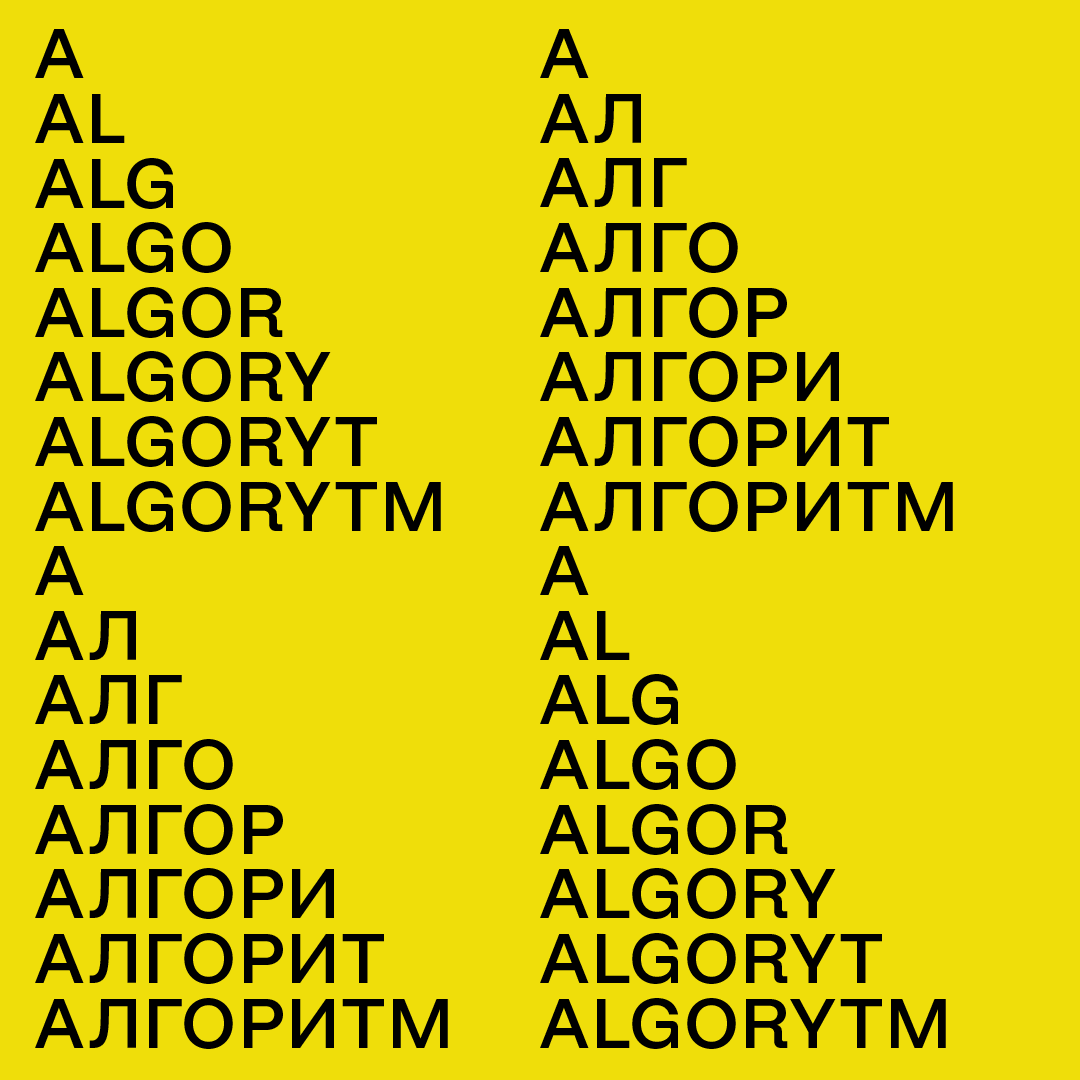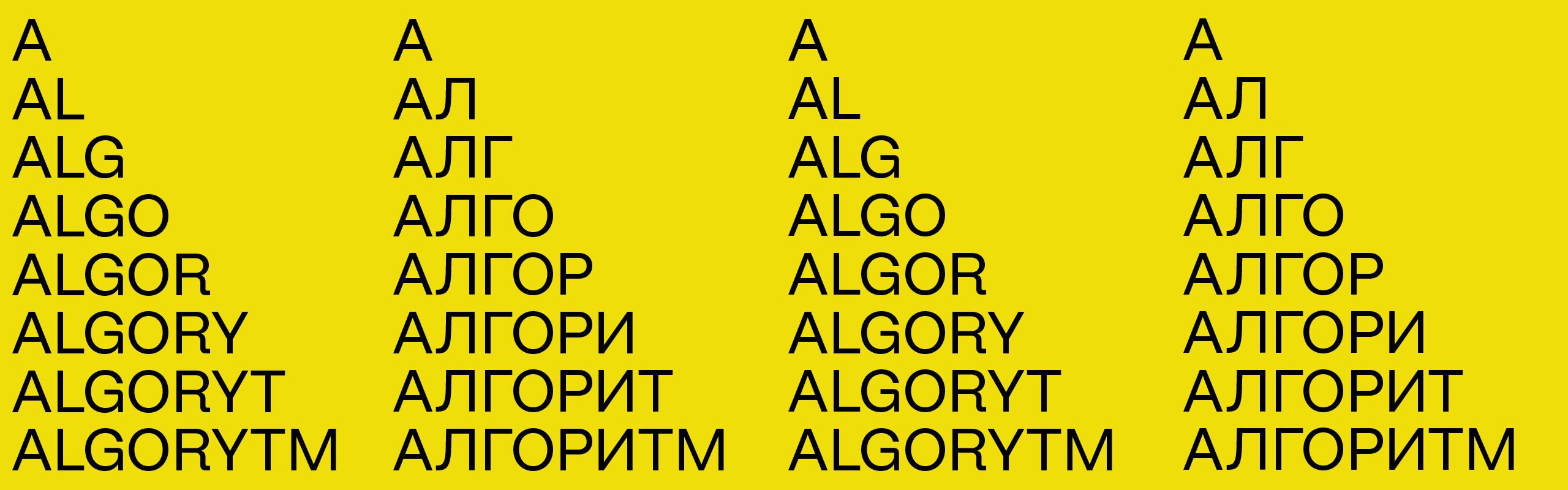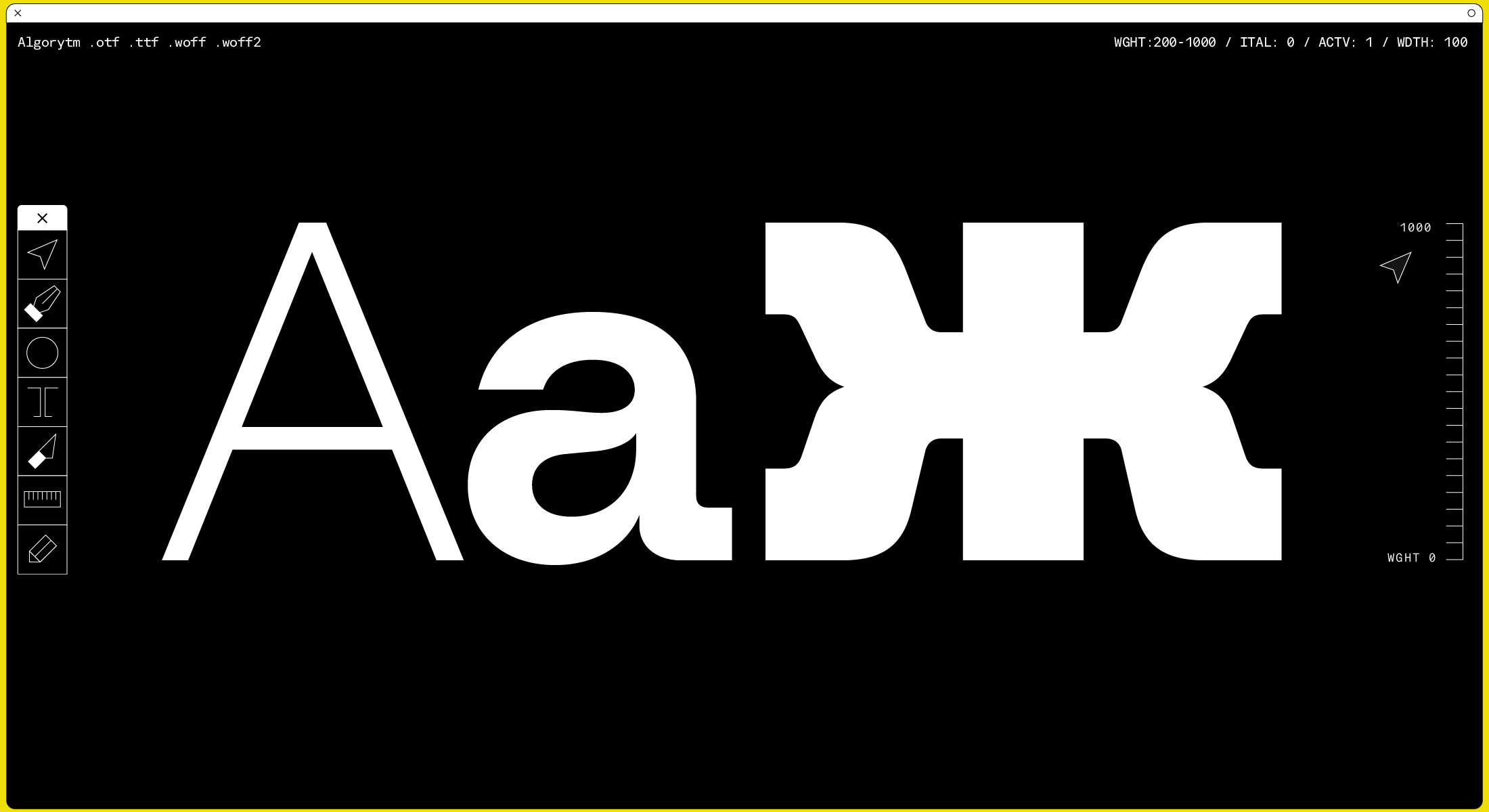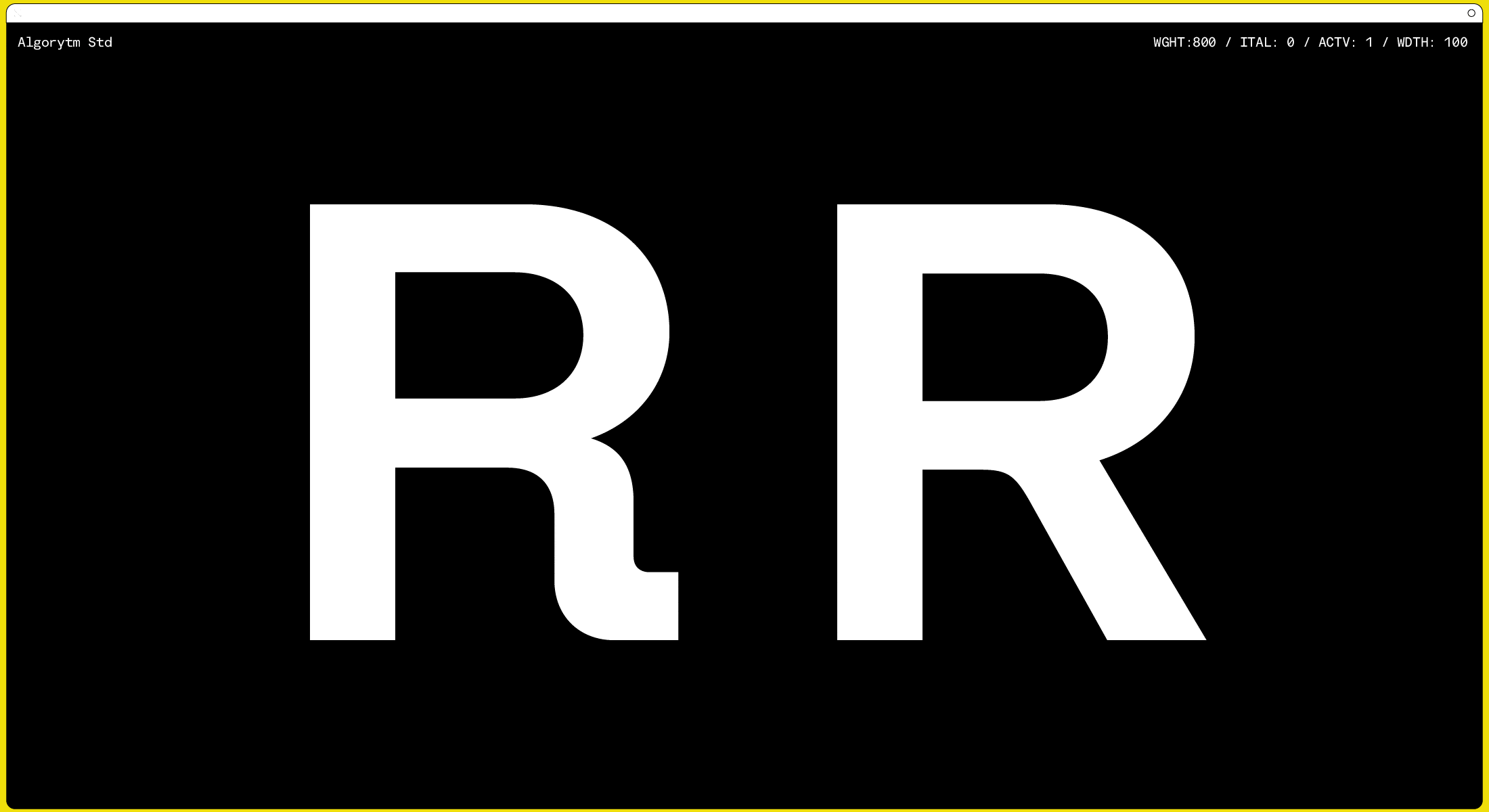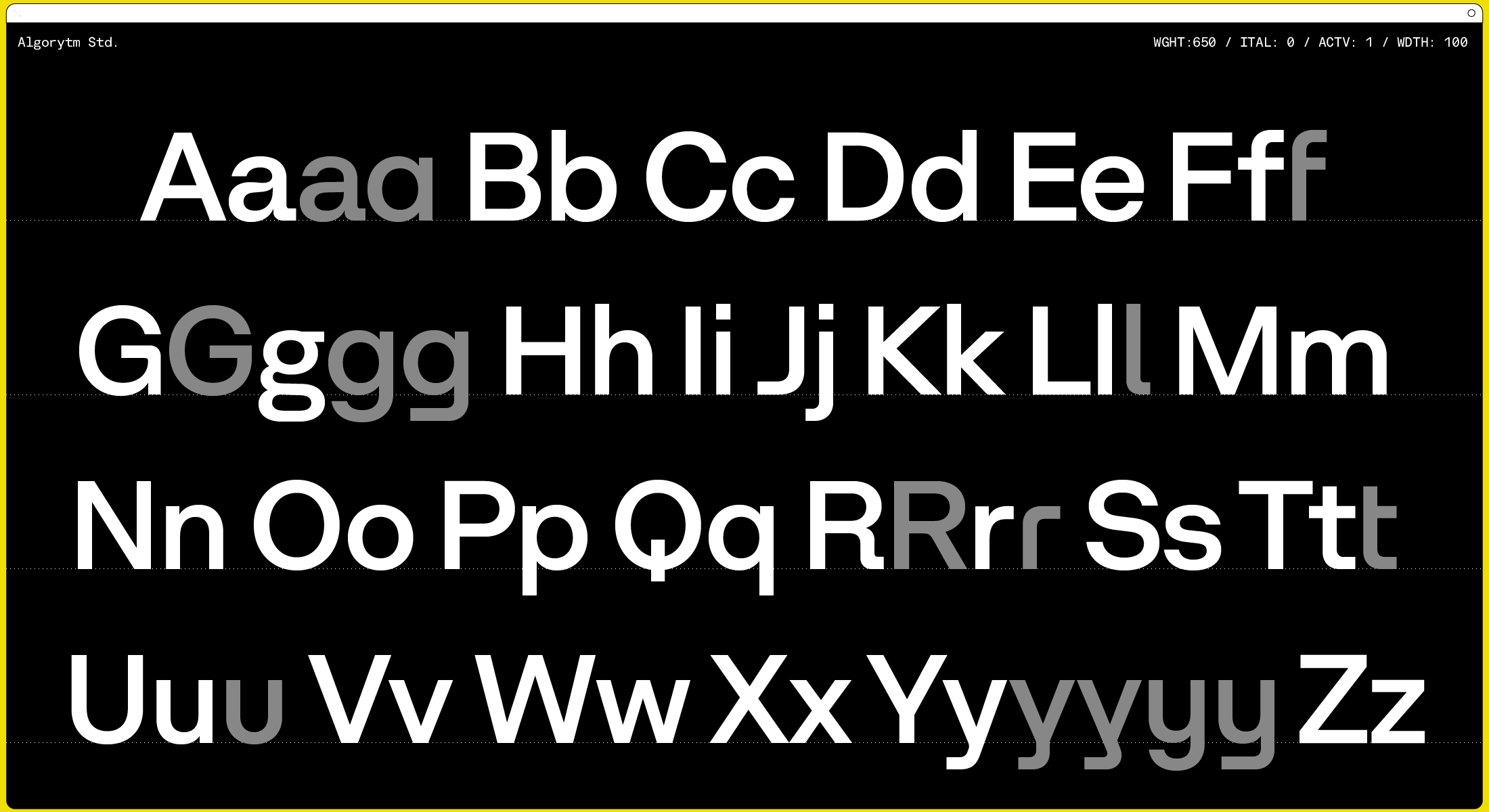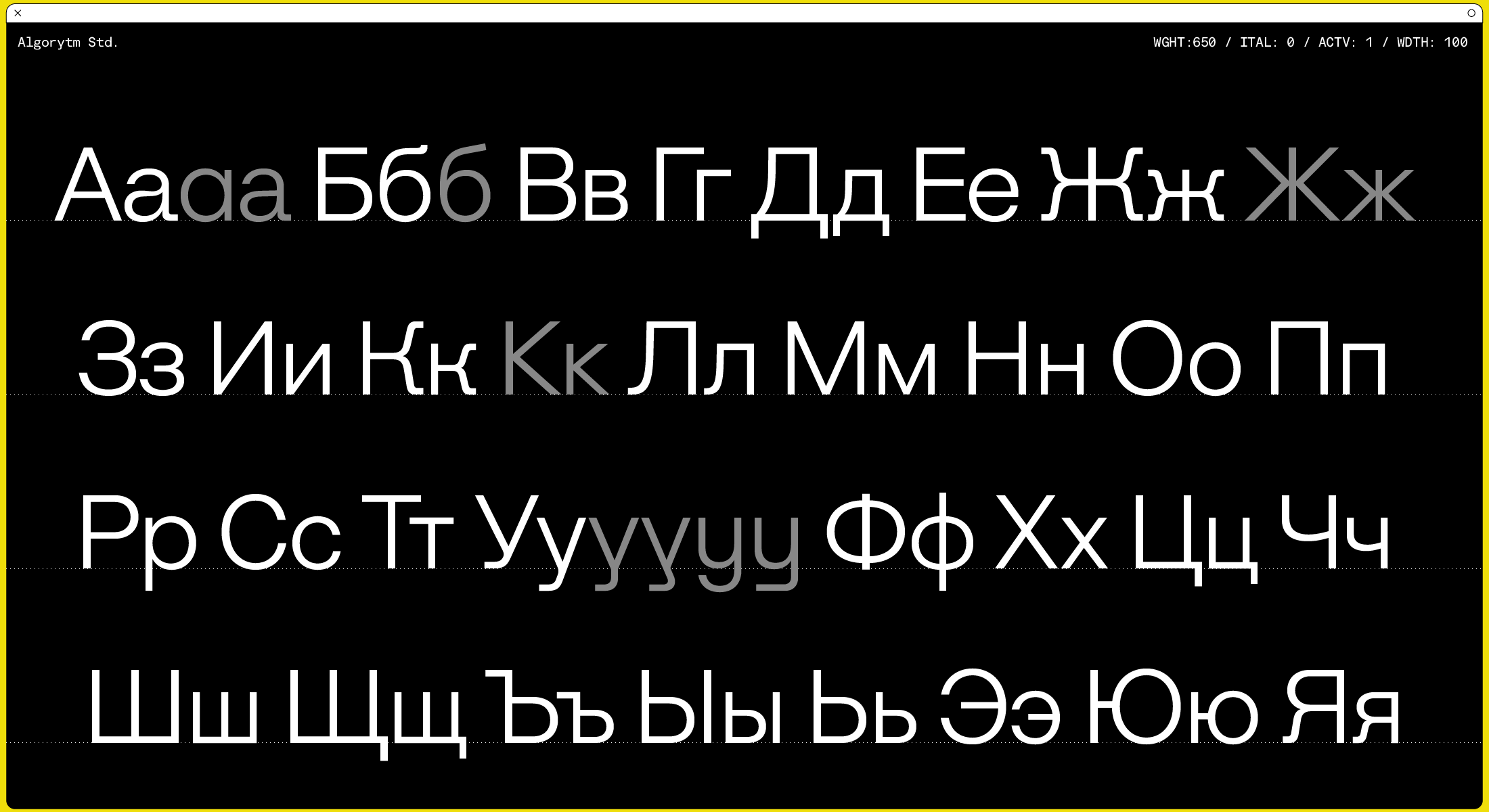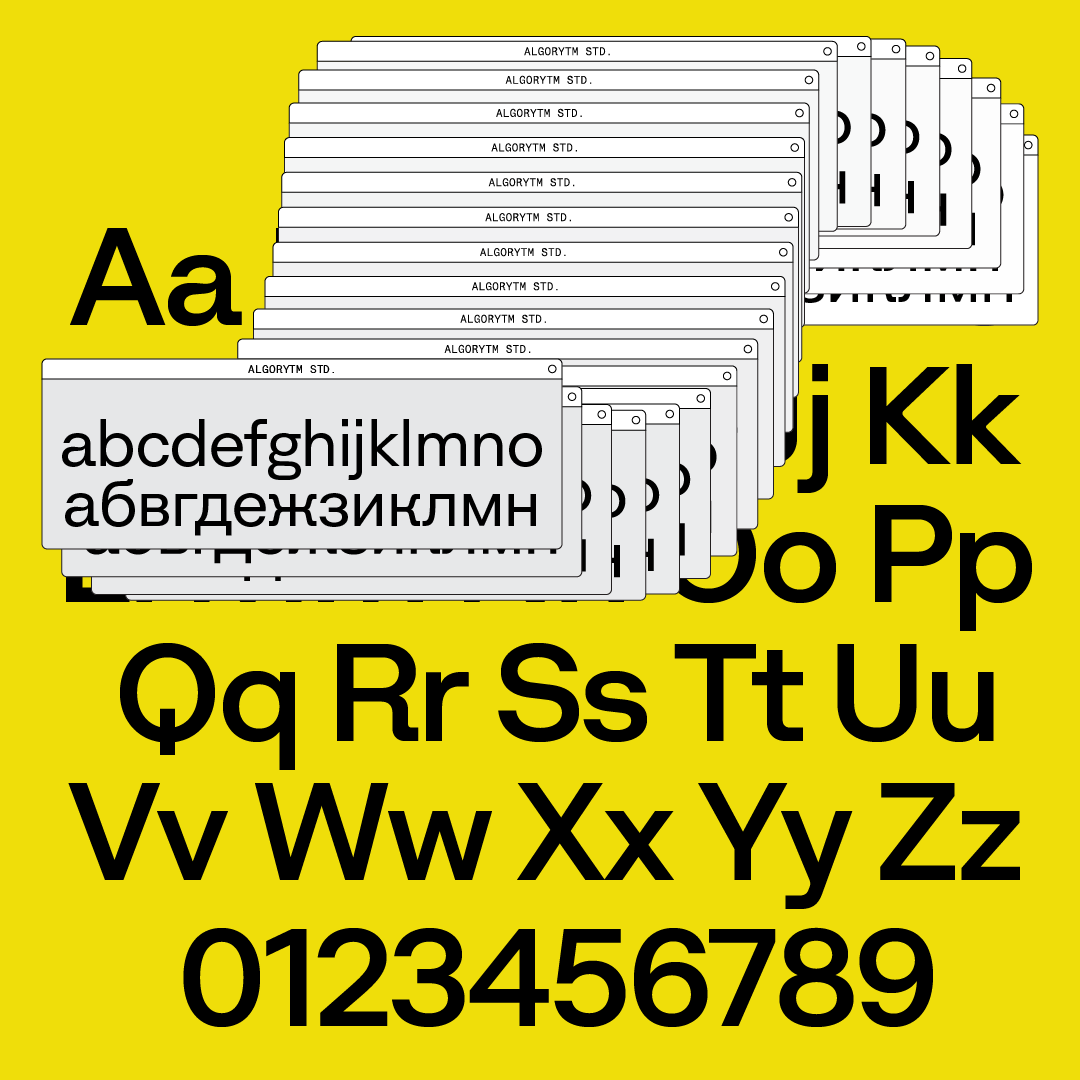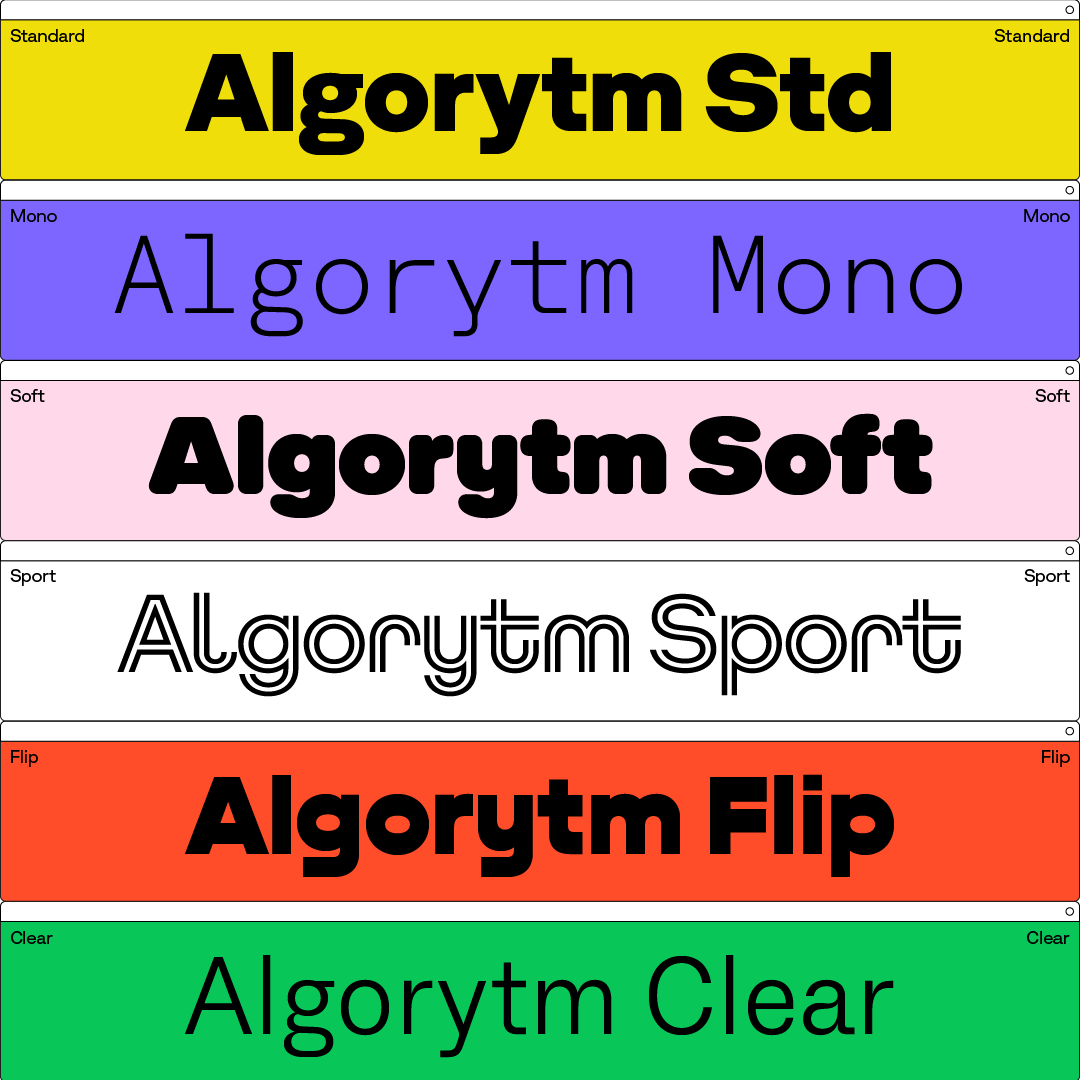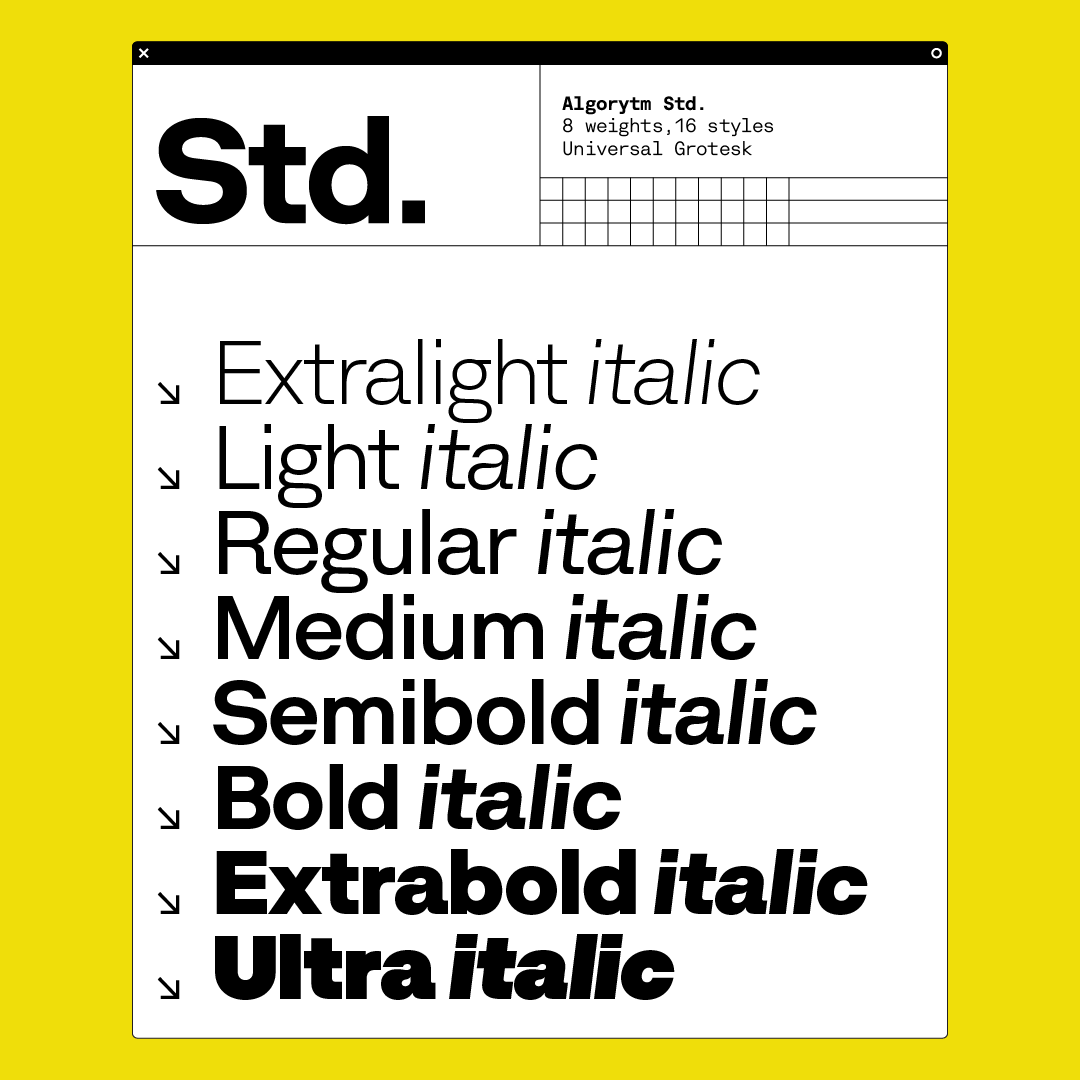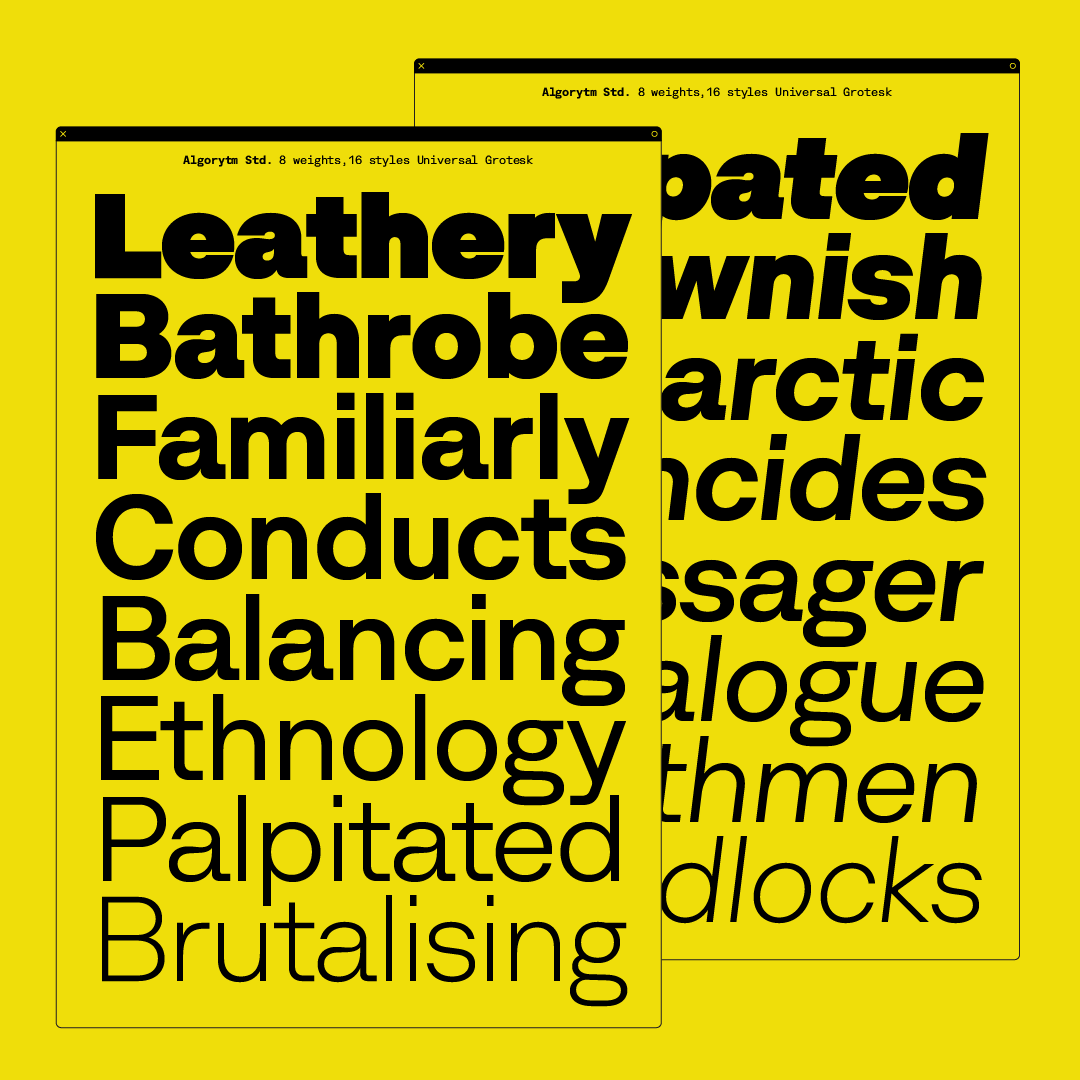
Algorytm Collection, a quick story
Algorytm is a versatile Collection of Sans Serif font families inspired by early gothis such as Times Gothic, Inland Gothic N6, or Gothic N2. Infused with a modern aesthetic and a systematic approach, the design strategy prioritizes multifunctionality, diversity, and flexibility, catering to a myriad of design needs and providing a comprehensive toolbox for visual projects.
The Algorytm collection comprises six type families: Algorytm, Algorytm Clear, Algorytm Mono, Algorytm Flip, Algorytm Soft, and Algorytm Sport, totaling 51 styles. The standard Algorytm version makes a bold statement, ideal for larger sizes, while Algorytm Clear is tailored for legibility in extended text passages. Algorytm Flip is a reverse contrast companion, while Algorytm Soft is a friendly version with rounded corners.
With its abundance of variations, alternates, features, and special characters, Algorytm stands out as a versatile choice, well-suited for a wide spectrum of design scenarios.
Scripts: Extended Latin, Cyrillic